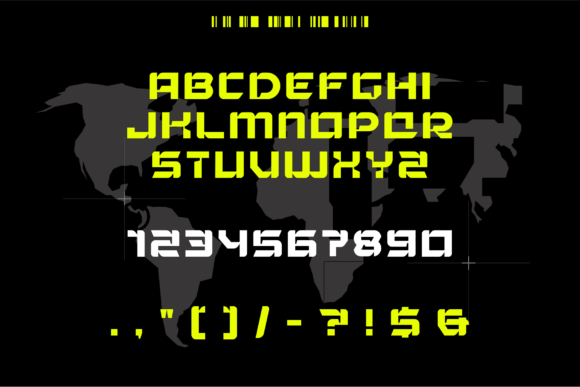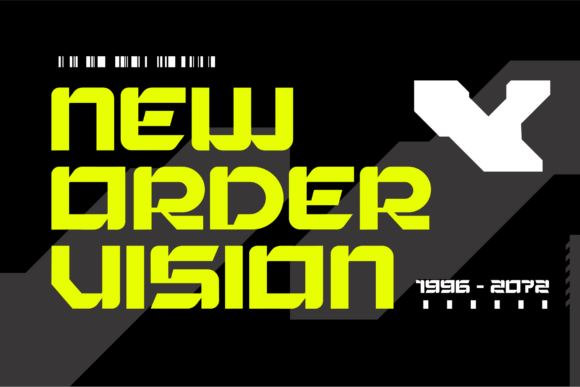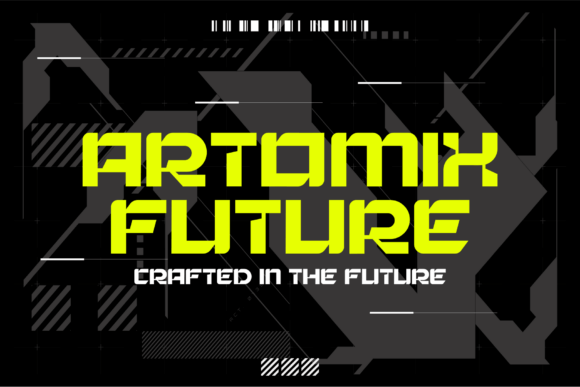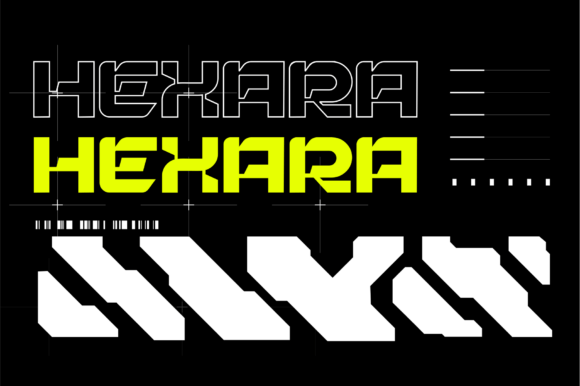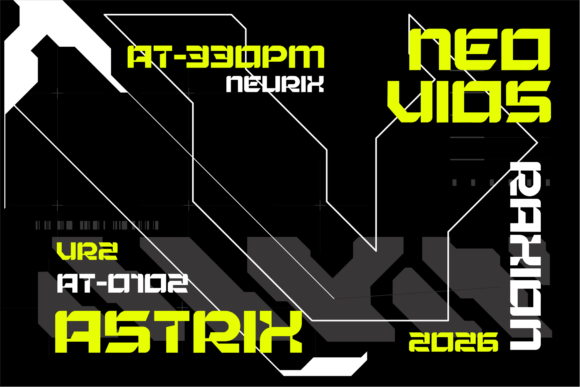
The Future of Typography: Introducing the Astrix Font
Have you ever been inspired by a futuristic sci-fi movie or a sleek tech gadget, only to find yourself wondering how to capture that same sense of innovation and modernity in your creative projects? As designers, we’ve all been there – searching for the perfect visual identity to bring our ideas to life.
That’s where the Astrix Font comes in – a cutting-edge display typeface designed to deliver a clean and modern aesthetic that’s perfect for futuristic and modern branding. With its precise geometric shapes, balanced proportions, and crisp line construction, Astrix is the ultimate tool for designers looking to create visually impactful and dynamic visuals that stand out in a crowded digital landscape.
Astrix Font Key Features
- Font Family: Astrix is a sans-serif font family, designed to be highly legible and versatile for digital use.
- Character Set: Supports a wide range of languages, including Latin, Cyrillic, and Greek scripts, making it suitable for global applications.
- Resolution: Designed to be crisp and clear at high resolutions, up to 300 DPI (dots per inch), ensuring optimal readability on high-resolution displays.
- Size: Available in multiple weights, ranging from Light to ExtraBold, providing flexibility for various design and typographic needs.
- Unique Characteristics: Astrix features a distinctive geometric shape and subtle rounded corners, giving it a modern and approachable feel, while maintaining a high level of legibility and readability.
Astrix Font Review
Overall, I think Astrix is a solid choice for typography. Here are some things that work well:
- ✨ Unique, modern design that can add some flair to your projects.
- ✨ Good for use as a heading font, the bold weight is particularly striking.
- ✨ Supports a range of languages, making it a versatile option.
- ⚠️ Limited font weights and styles, which might not be ideal for complex typography projects.
- ⚠️ Not as readable in small text sizes, which could be a problem for body text.
- ⚠️ Not as widely supported as some other fonts, which might cause issues in certain browsers or devices.
Overall, I think Astrix is a great choice for projects where you want to add some visual interest with a bold, modern font. Just be mindful of its limitations and use it thoughtfully. With some careful planning, Astrix can be a real showstopper.
Tips for Getting the Most Out of Astrix Font
Use Astrix font for bold headings and titles to add a touch of sophistication.
Combine Astrix with other fonts to create a unique and modern look.
Astrix font is perfect for:
Business presentations and reports
Marketing materials and brochures
Website headers and titles
Alternative Fonts to Astrix
Fontin Sans
Fontin Sans is a modern sans-serif font designed for digital media. It is suitable for use in headings, titles, and body text where a clean and minimalist aesthetic is desired. Fontin Sans is a more traditional sans-serif font compared to Astrix, which has a more futuristic and geometric feel.
Montserrat is a sans-serif font designed for use in urban environments. It is a versatile font that can be used for headings, titles, and body text, and is particularly well-suited for use in digital media. Montserrat is similar to Astrix in terms of its geometric feel, but has a more classic and timeless aesthetic.
Source Sans Pro
Source Sans Pro is a sans-serif font designed for use in digital media. It is a highly legible font that is suitable for use in body text, and is also suitable for use in headings and titles where a clean and minimalist aesthetic is desired. Source Sans Pro is a more traditional sans-serif font compared to Astrix, which has a more futuristic and geometric feel.
Avenir is a sans-serif font designed for use in digital media. It is a highly legible font that is suitable for use in body text, and is also suitable for use in headings and titles where a clean and minimalist aesthetic is desired. Avenir is similar to Astrix in terms of its geometric feel, but has a more classic and timeless aesthetic.
What is the recommended font size for using Astrix?
The recommended font size for using Astrix depends on the intended use and the medium in which it will be displayed. For digital media, a font size of 12-14 points is recommended, while for print media, a font size of 10-12 points is suitable. However, it’s always best to test the font at different sizes to ensure optimal legibility and readability.